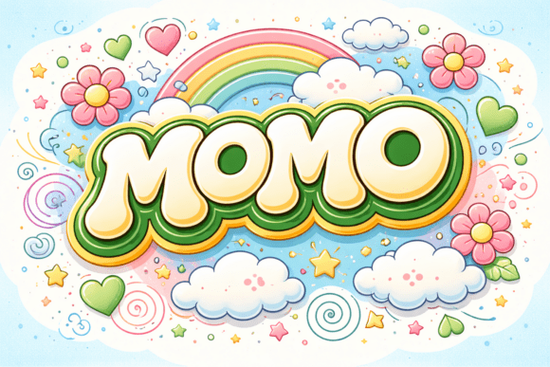
If you're looking for a display font that instantly adds personality to your designs, the Momo Font is worth a closer look. With its bold, rounded letterforms and groovy 1970s-inspired vibe, it brings a playful yet polished energy to everything from snack packaging to event posters. Unlike sterile or overly geometric typefaces, Momo feels hand-crafted soft, slightly irregular, and full of character without being chaotic.
What makes Momo Font stand out from other display fonts?
Momo isn’t just another bubble font. Its design leans into retro aesthetics but avoids feeling dated. The letters are inflated and friendly, with zero sharp corners everything flows smoothly, like it was drawn with a fat marker on a sun-bleached poster from a vintage record shop. You’ll notice subtle decorative tails on letters like “y” or “g,” giving it that psychedelic flair without overwhelming readability.
Compared to other expressive options like Raize Brush or Cloak, Momo holds its own with solid, dense shapes that work especially well in tight spaces think logo lockups or product labels where every millimeter counts. It’s less about brushstroke texture (like Raize) and more about pure form and presence.
When should you use Momo Font in your projects?
This font shines in contexts where approachability and fun matter most. Here are a few ideal uses:
- Food & beverage branding – Think ice cream trucks, milk cartons, candy wrappers, or artisanal soda labels. Momo’s soft roundness feels inherently sweet and inviting.
- Event posters and flyers – Music festivals, retro-themed parties, or community markets benefit from its eye-catching silhouette.
- Merchandise and apparel – Print-on-demand sellers can use Momo for bold chest prints or tote bag slogans that need to pop at a glance.
- Children’s products – Books, toys, or educational materials gain warmth and playfulness without appearing childish.
Because of its compact proportions and high visual weight, Momo works best at larger sizes. It’s not meant for body text but that’s true of most display fonts, including Hello Bold or Mobie, which also prioritize impact over readability in small formats.
How does Momo pair with other fonts?
Momo’s strong personality means it doesn’t need a lot of help but it does need balance. Pair it with clean, neutral sans-serifs that won’t compete for attention. A simple geometric typeface like Montserrat, Lato, or even Helvetica Neue lets Momo take center stage while keeping the overall design grounded.
Avoid pairing it with other highly decorative fonts (like Raize Brush) unless you’re going for an intentionally maximalist look. In most commercial applications especially for small businesses or craft brands less is more.
Is Momo Font right for your brand?
If your brand voice is cheerful, nostalgic, or whimsical, Momo could be a natural fit. It’s not suited for luxury, tech, or corporate identities but that’s by design. This font embraces imperfection and joy, making it perfect for creators who want their visuals to feel human and memorable.
- Test at scale – View Momo in your actual layout size. What looks charming at 72pt might feel cramped at 24pt.
- Use color wisely – Solid, saturated colors maximize its impact. Avoid thin outlines or light tints they dilute the boldness that makes Momo special.
- Limit usage – One or two words in Momo often suffice. Overuse can make a design feel cluttered or unserious.
If you love retro-inspired type with modern usability, Momo Font offers a distinctive blend of nostalgia and clarity. And if you’re exploring similar styles, don’t miss alternatives like Hello Bold for sharper contrast or Mobie for a more futuristic twist all available in Creative Fabrica’s display font collection.